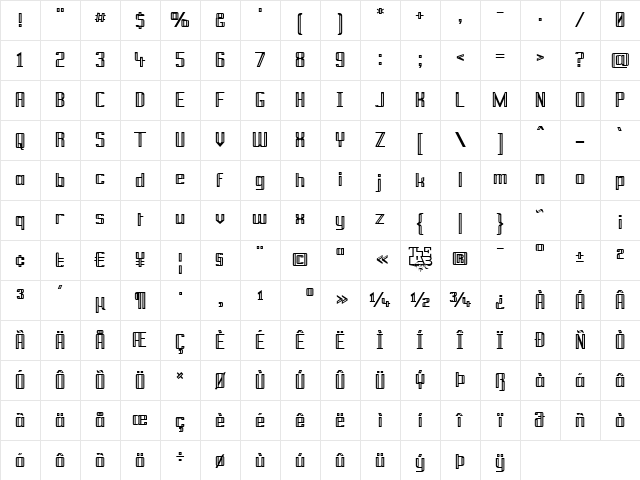
Prussian Brew Regular
Designer: Graham Meade & Apostrophe
Complete Prussian Brew Regular glyph index. Displaying only characters natively supported by Prussian Brew Regular font.
Design Context for Prussian Brew
Prussian Brew is a composed and adaptable typeface that performs quietly and consistently across a wide range of design contexts.